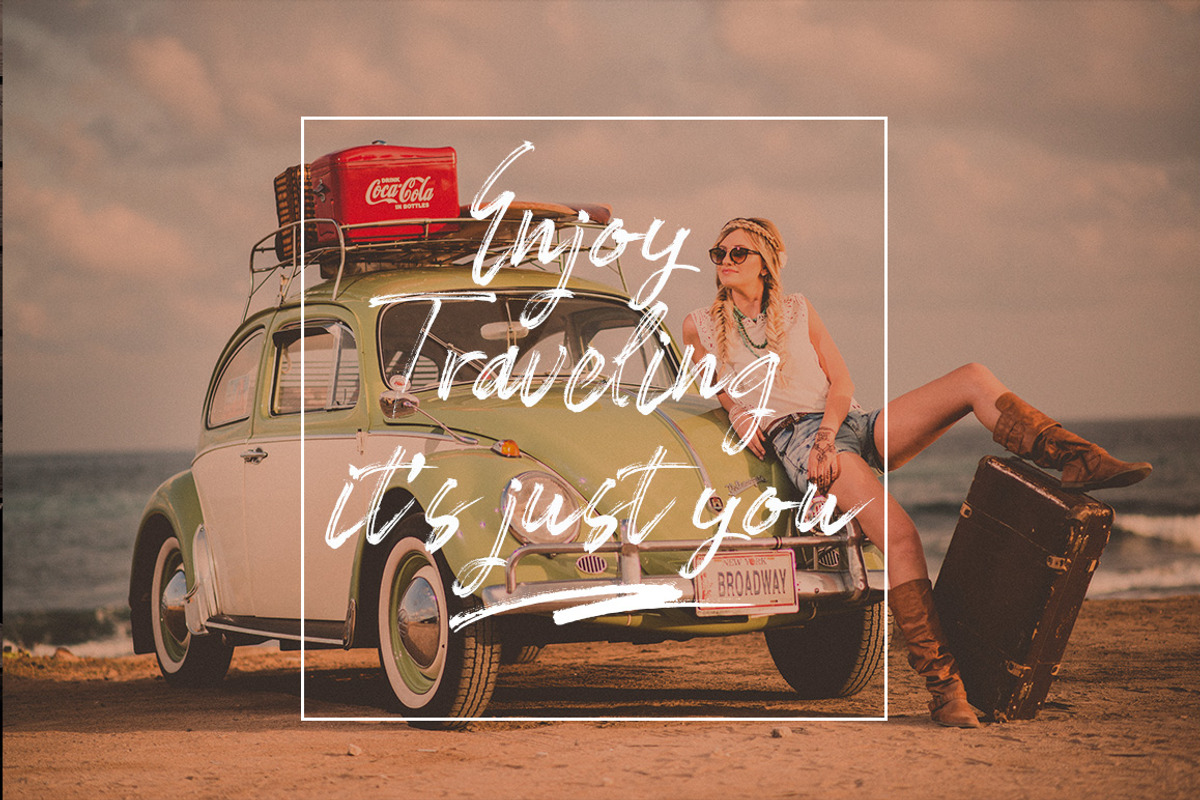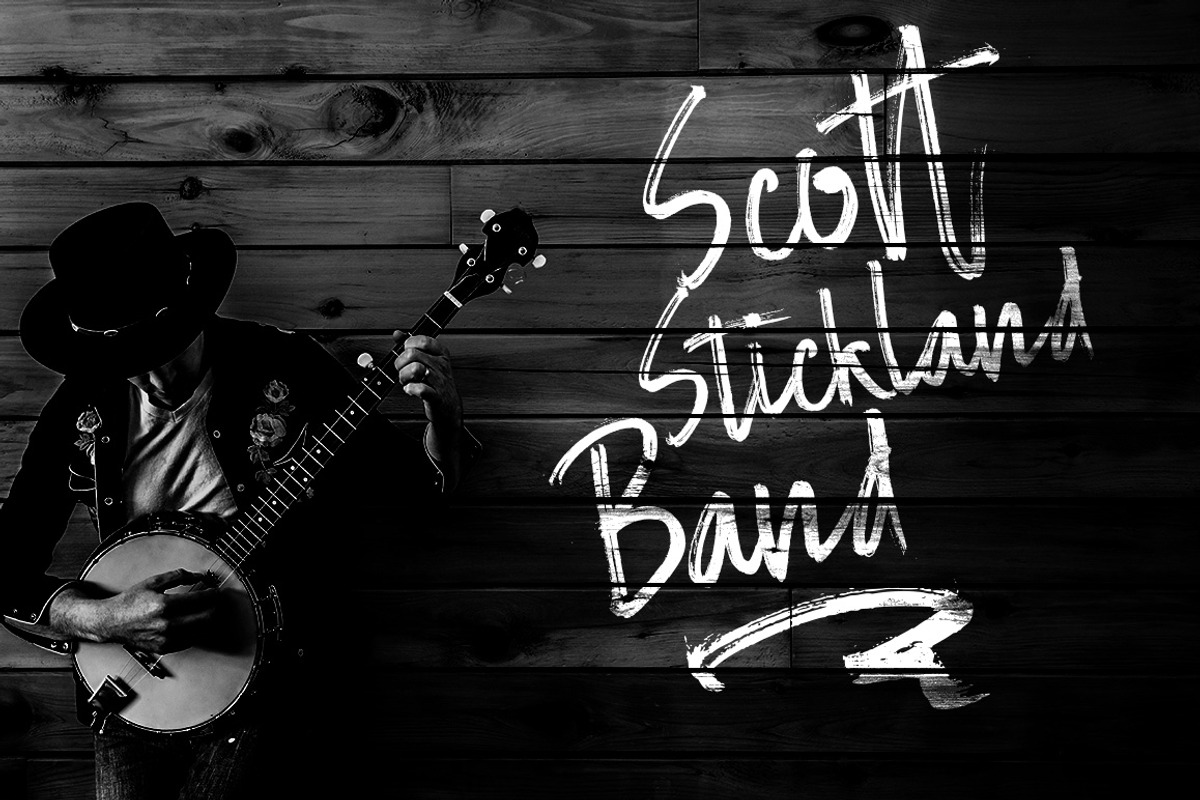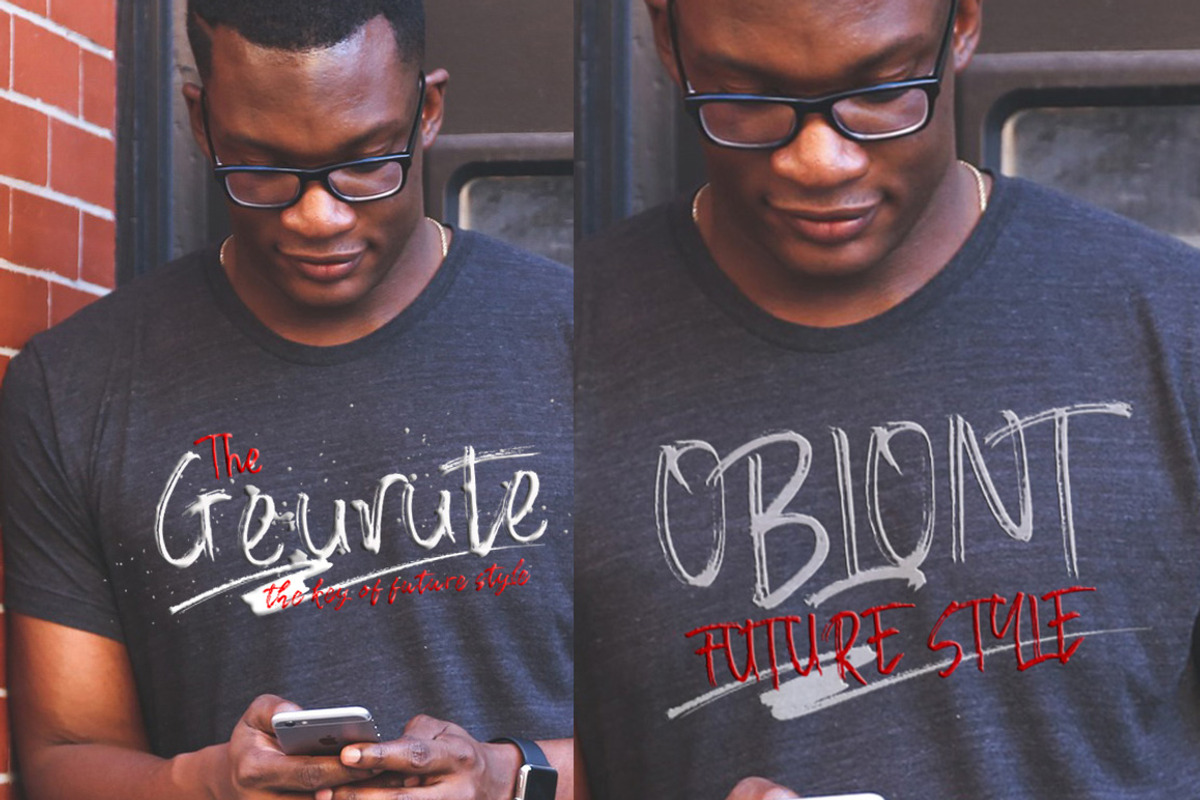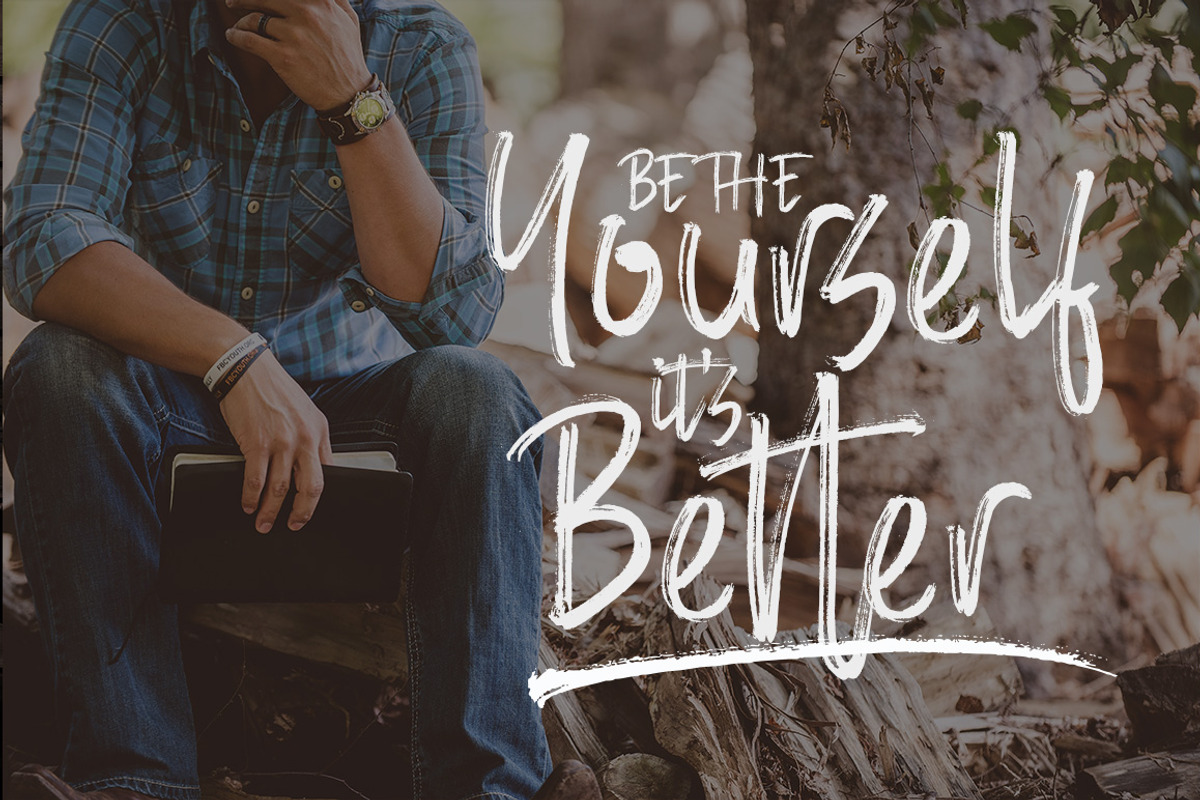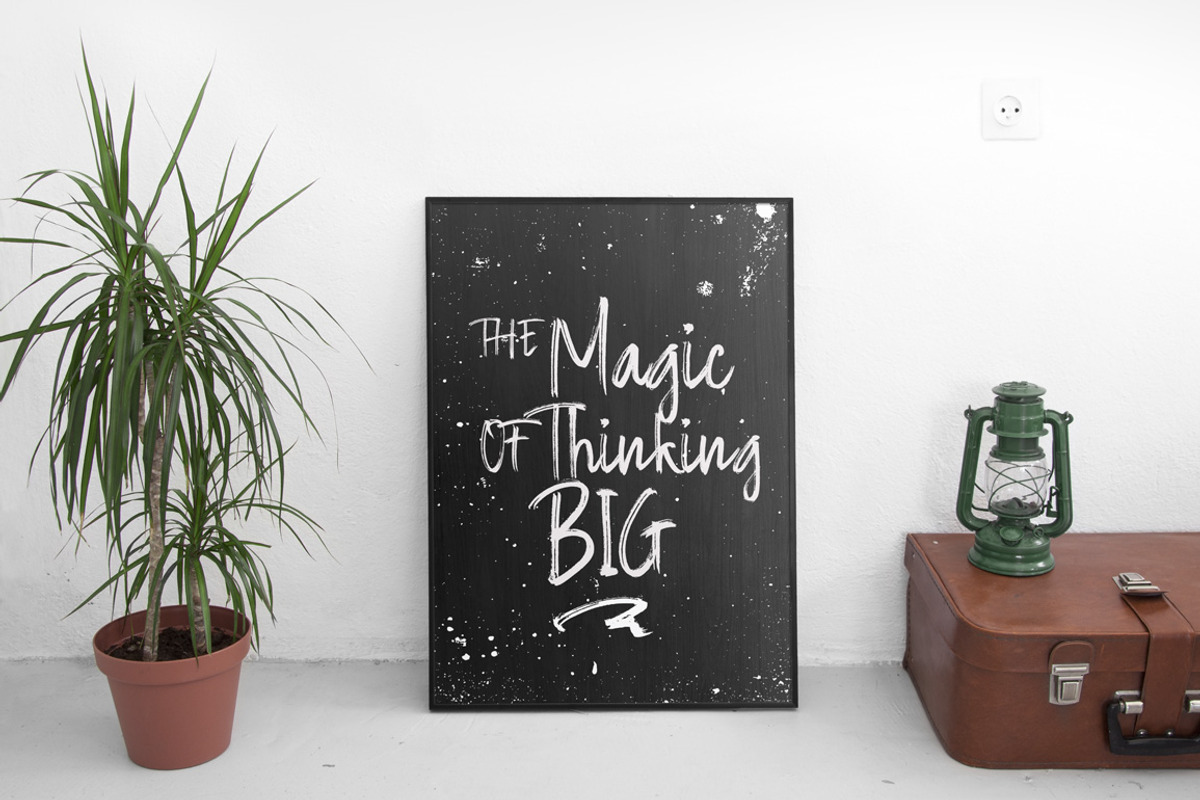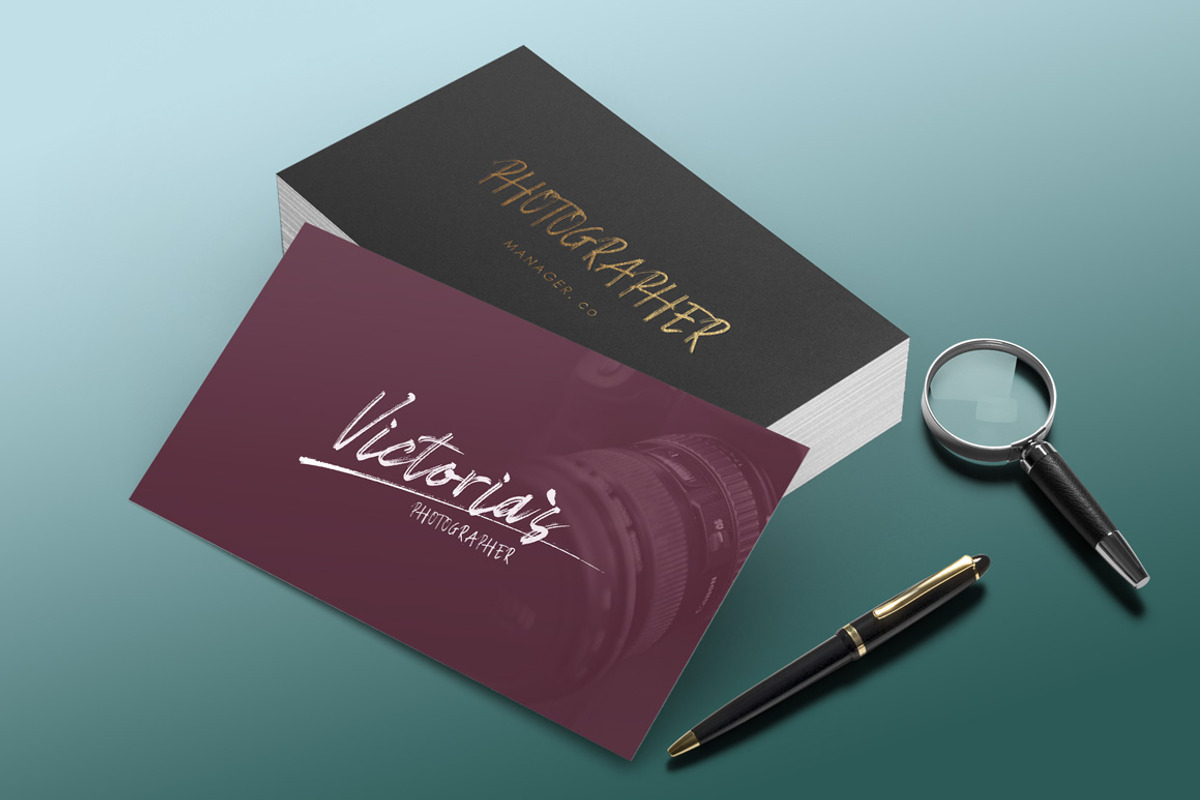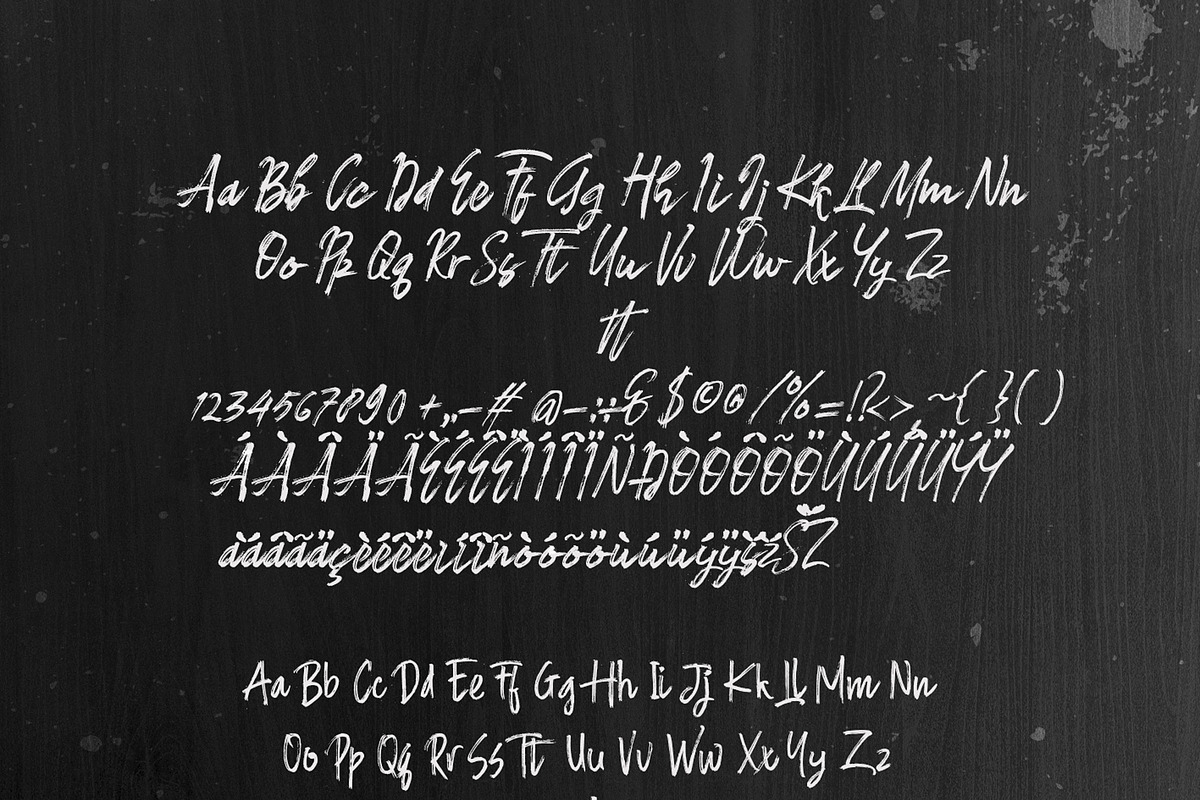
Expant (Fonts Duo+Swash)
Expant (Fonts Duo+Swash) by jorse is a font selected for branding, posters, packaging, typography.
Why Expant (Fonts Duo+Swash) is worth a look
Expant (Fonts Duo+Swash) by jorse fits naturally into Branding, posters, packaging, typography.